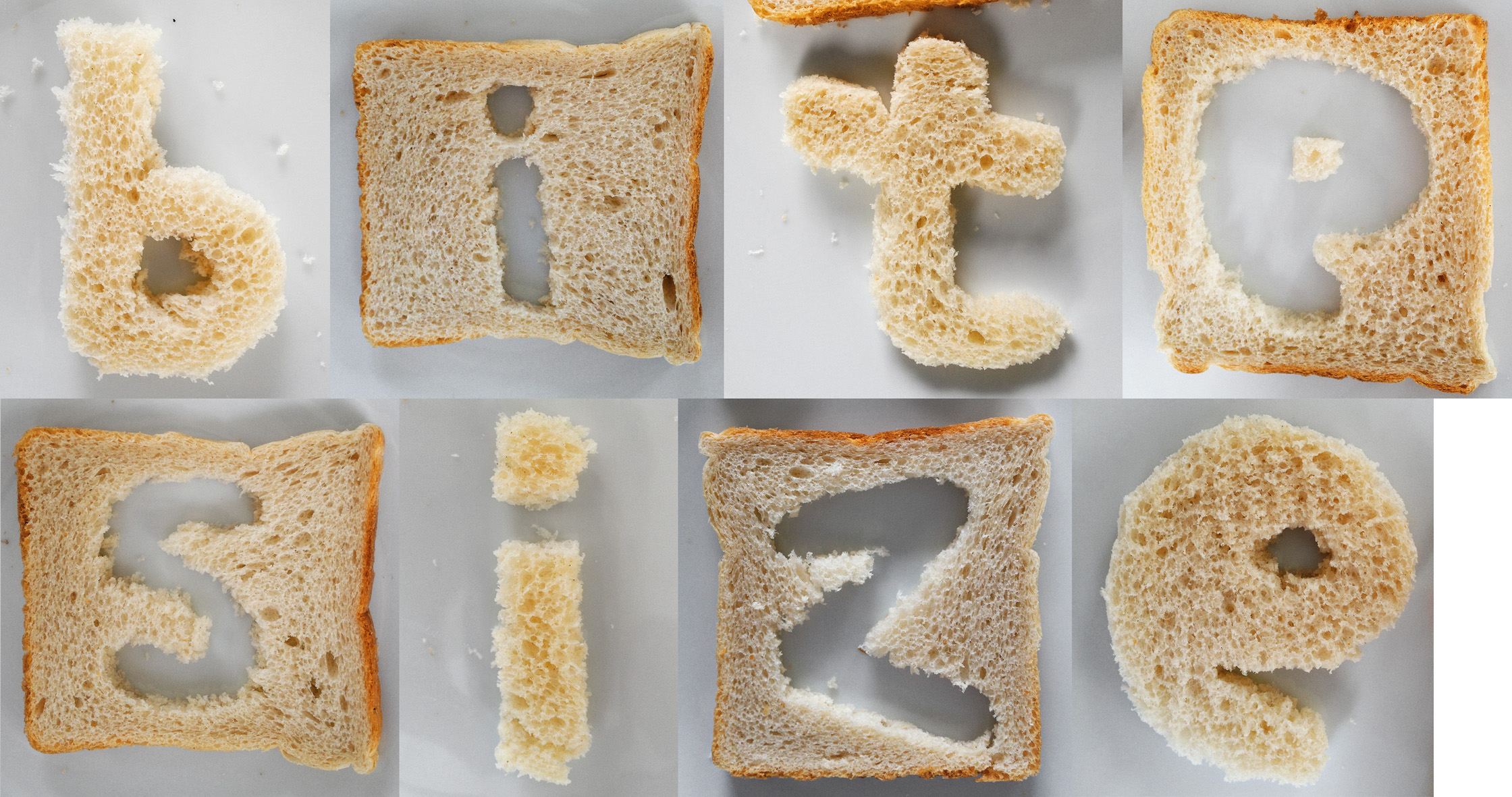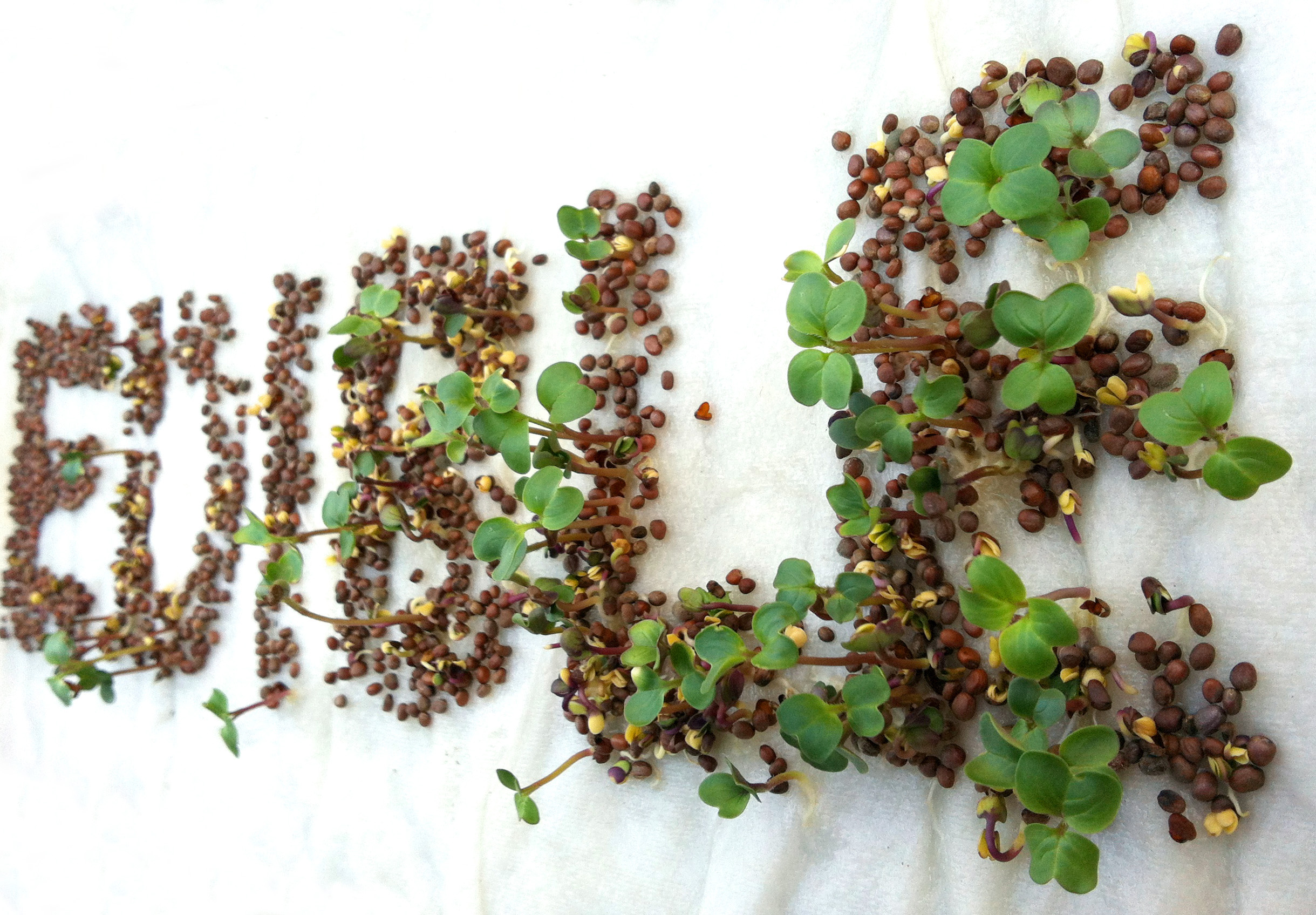
Channel 4’s Sunday Brunch features history and fashion in type with Sarah Hyndman
Sarah Hyndman interviewed on Sunday Brunch on April 9th 2017, this is available here on catchup TV in the UK (the interview starts at around 01:10). This is an overview of the conversation that covered 550 years of type in eight and a half minutes, with a few supporting facts added in.
‘Bitesize’ and ‘Edible’
‘Bitesize’ by Rachael Tremlett
“Just for fun! Inspired by our breakfast at a greasy cafe this morning we made this.”
‘Edible’ by Sarah Hyndman
Inspired by growing seeds in egg shells with her nieces Elle and Dexy.
‘Bitesize’ by Rachael Tremlett and ‘Edible’ by Sarah Hyndman will be displayed at Type Tasting with the London Design Festival 2013 at the V&A.